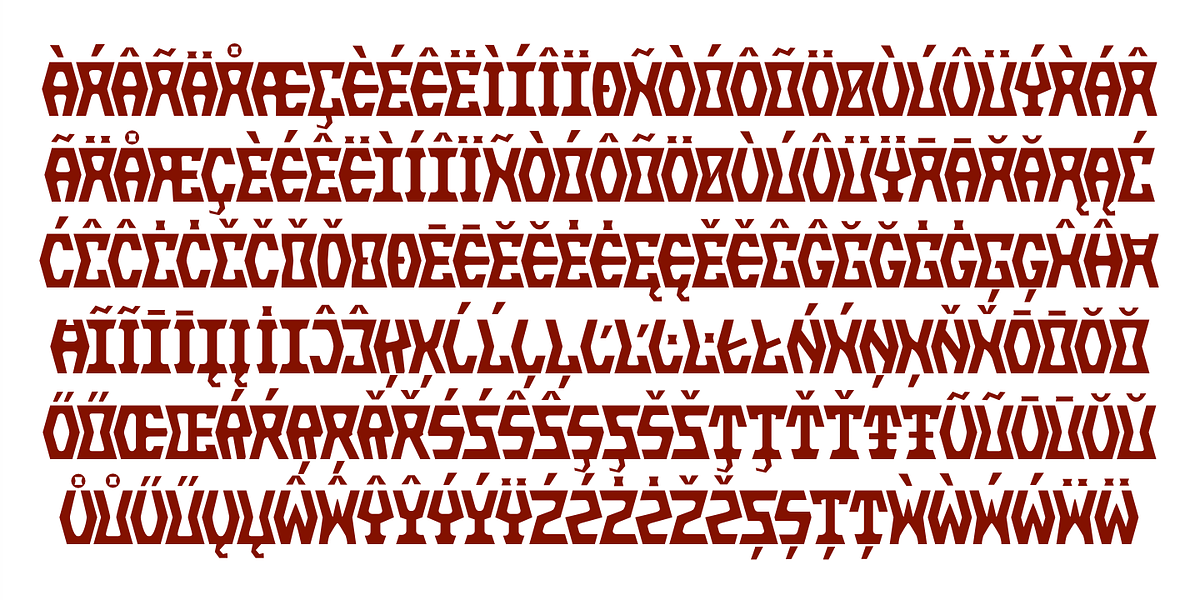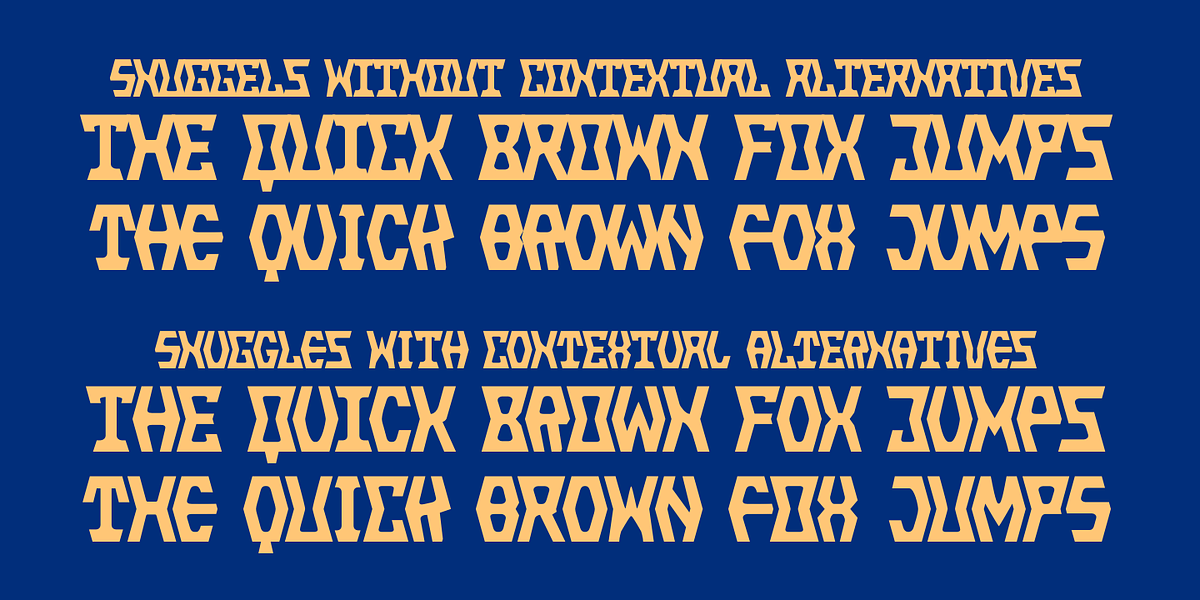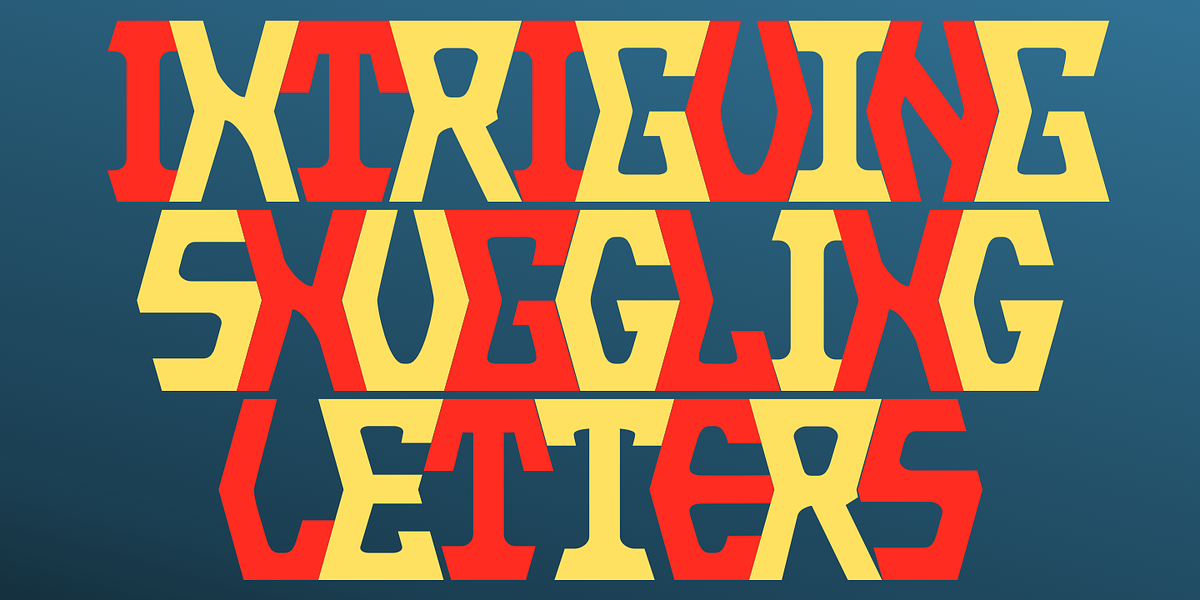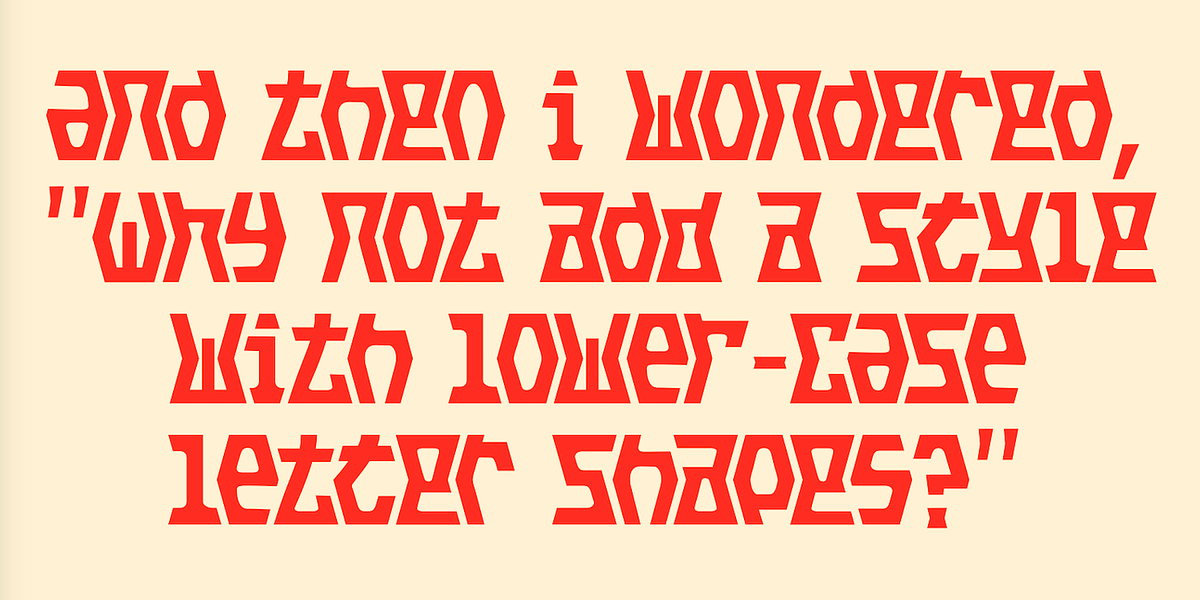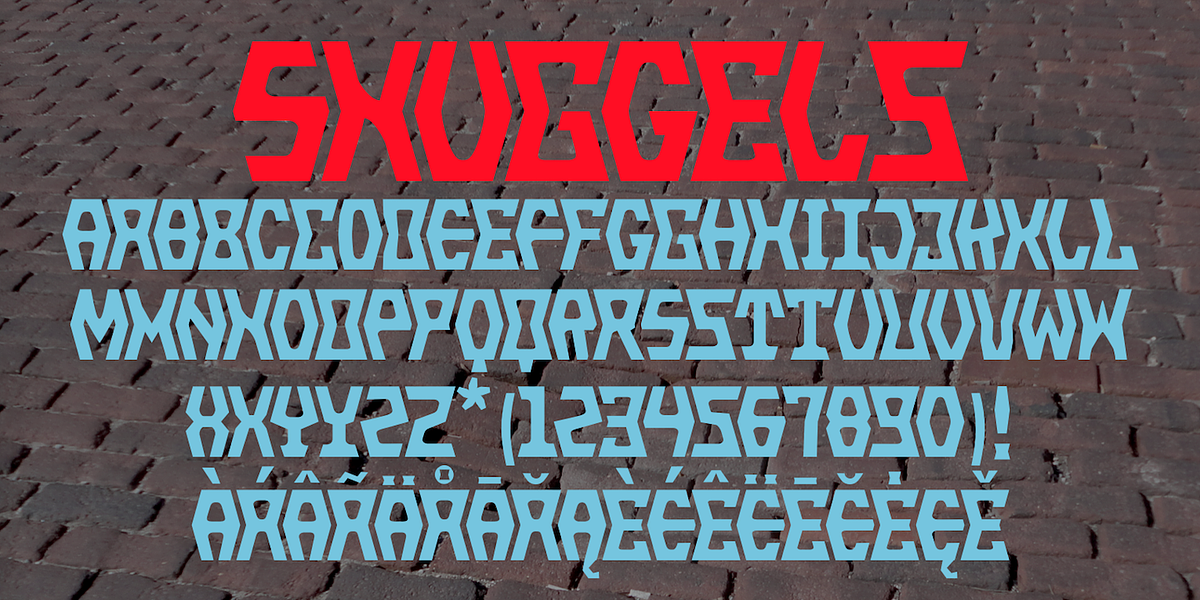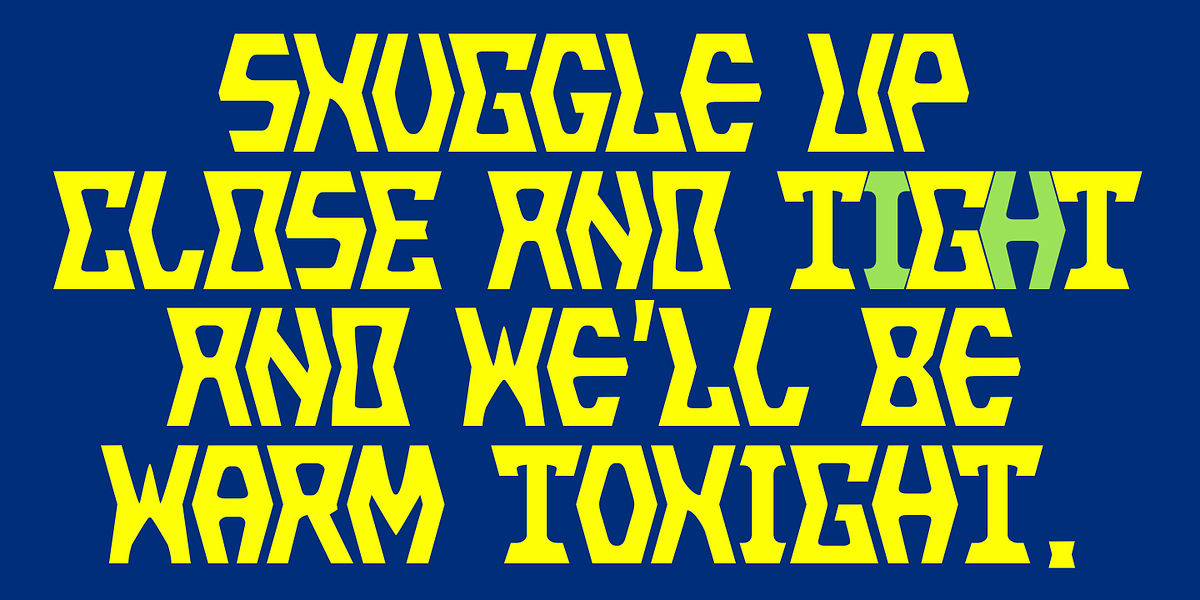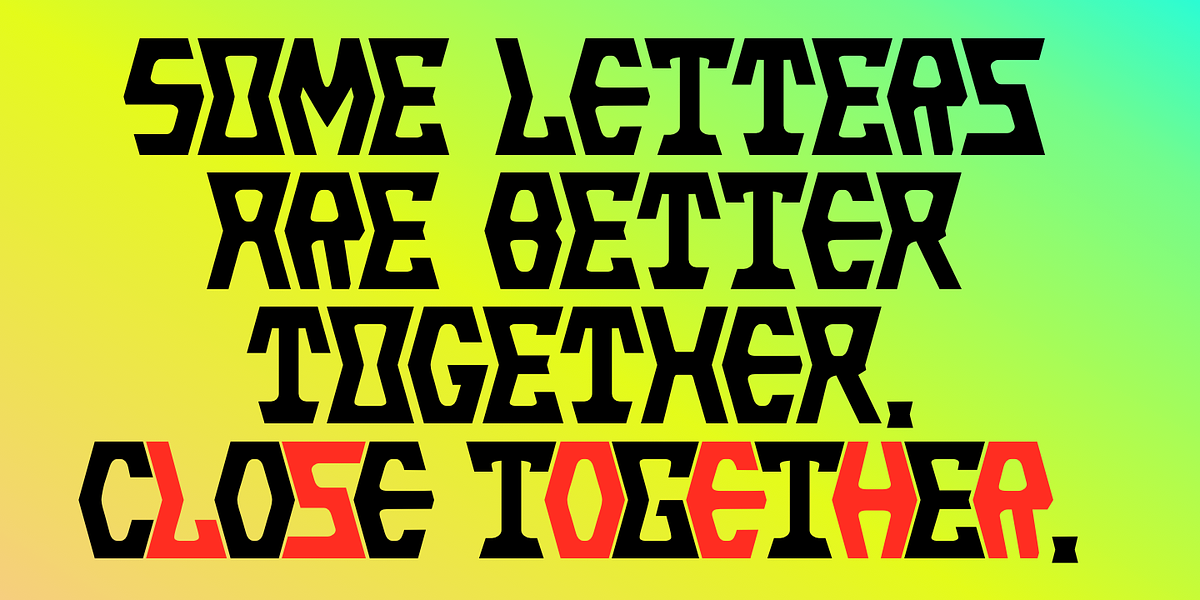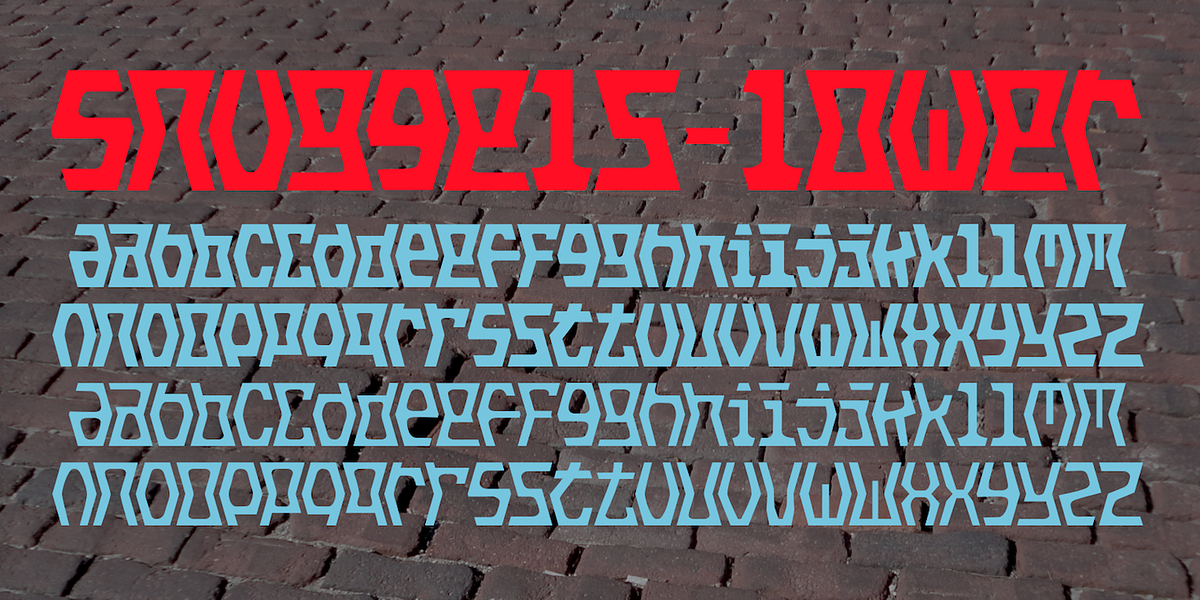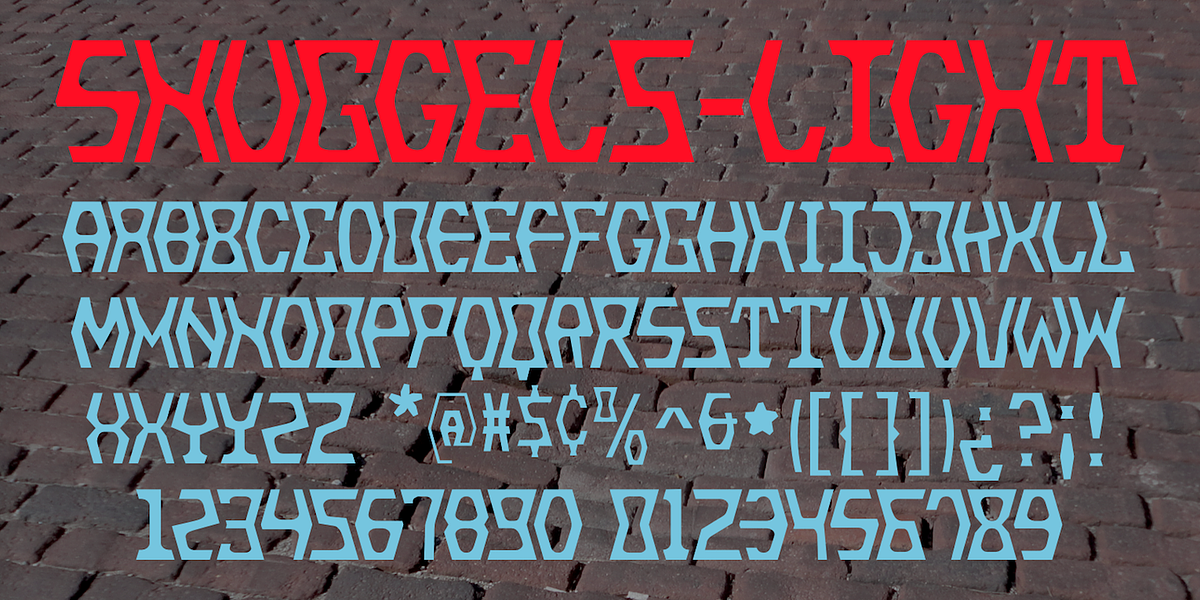
Snuggels
Snuggles is a display font constructed from interlocking hexagonal and hourglass shapes. The result is an unconventional, eye-catching design best suited for large sizes and attention-grabbing applications like headlines and posters. The font includes OpenType contextual alternates that automatically switch between two sets of letterforms for a dynamic effect.